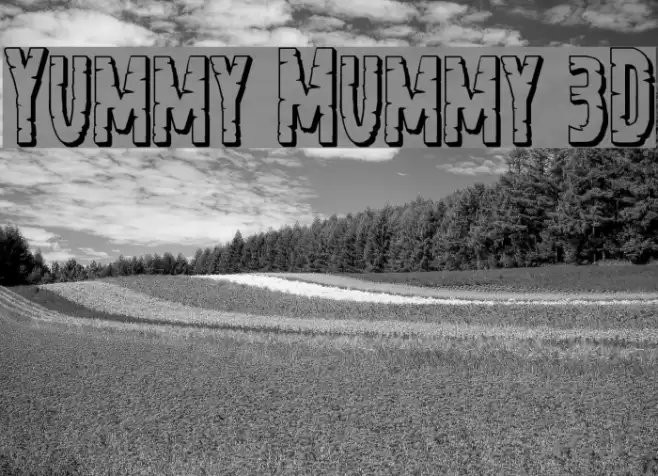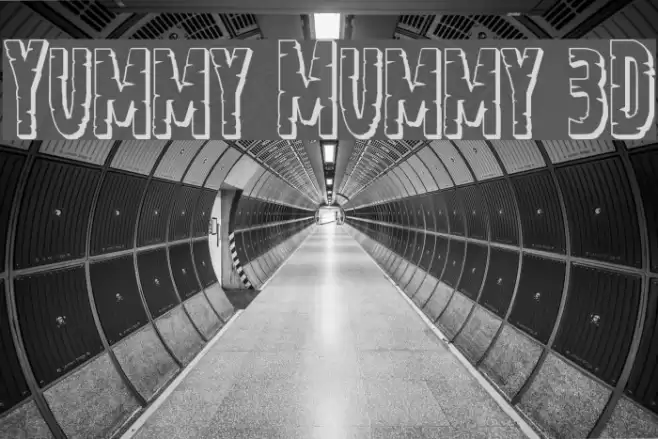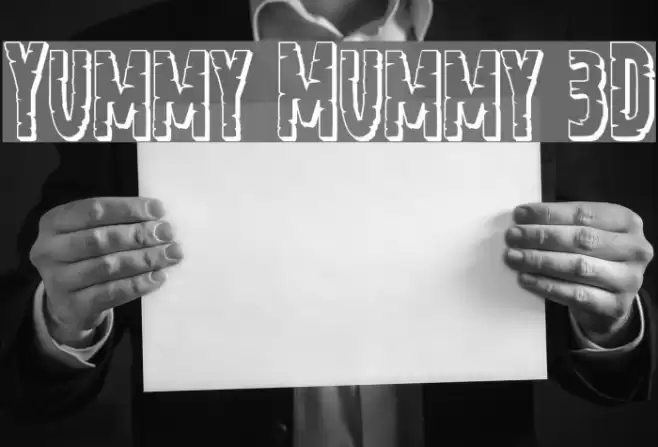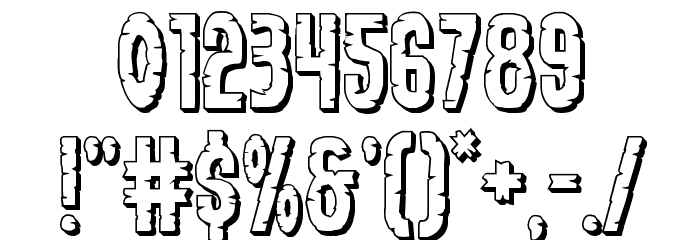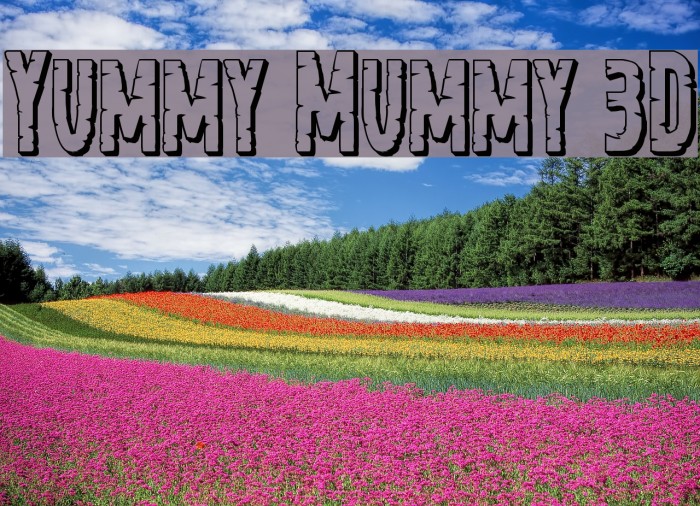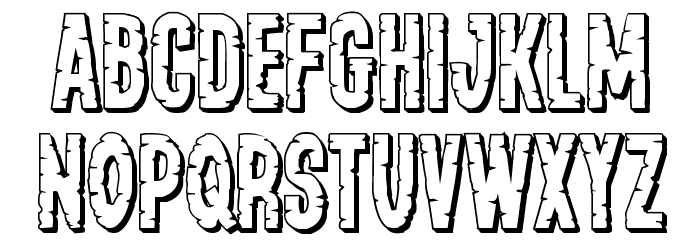
Yummy Mummy 3D Font
Yummy Mummy 3D Description
This font features a bold, playful 3D effect with a shadow that gives it a dynamic and eye-catching appearance. The characters are outlined with a thick black border, enhancing their visibility and making them stand out. The interior of each letter is filled with a white space, creating a striking contrast against the bold outlines. This font is designed to capture attention and convey a sense of fun and creativity. The uppercase letters are uniform in height, while the numbers and special characters maintain the same bold style, ensuring consistency across all elements. The font's unique style makes it suitable for projects that require a strong visual impact.
- Proposed Projects: Ideal for children's book covers, playful branding, eye-catching posters, and creative event invitations.
- Overall Style: Playful, Creative